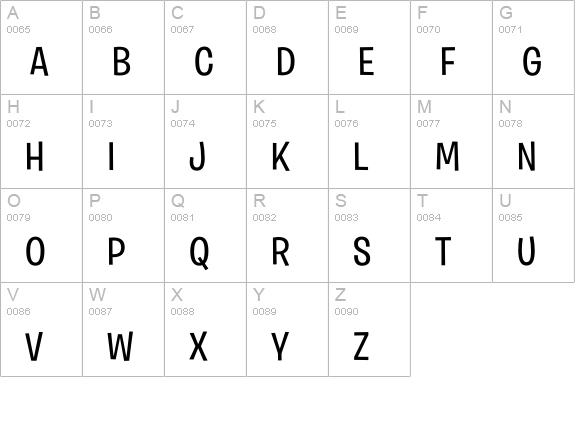
Burbank Big Regular Medium is the standard, neutral variant in the Burbank typeface family \xE2\x80\x94 well suited to general body text, paragraphs, and standard typographic work.
Burbank Big Regular Medium font is a versatile and modern typeface that exudes confidence and style. With its clean lines and bold presence, this font is perfect for a wide range of design projects, from branding to advertising to web design. The medium weight strikes a balance between being impactful and easily readable, making it suitable for both headlines and body text. What's even better is that Burbank Big Regular Medium font is available for free download at FontsMarket.com. This means you can enhance your projects with this striking font without any cost. Don't miss out on the opportunity to elevate your designs with this eye-catching and professional typeface. Download Burbank Big Regular Medium font today and see the difference it can make in your work!